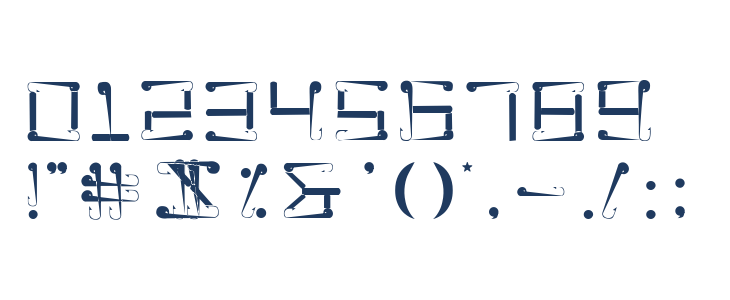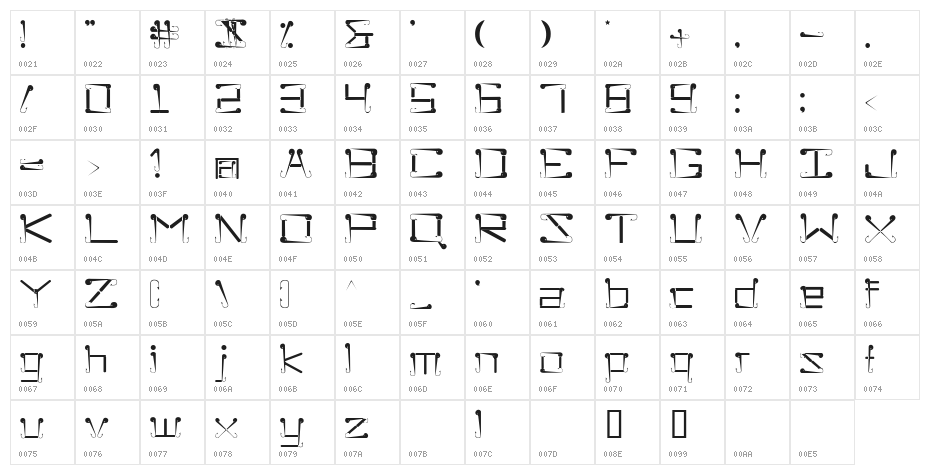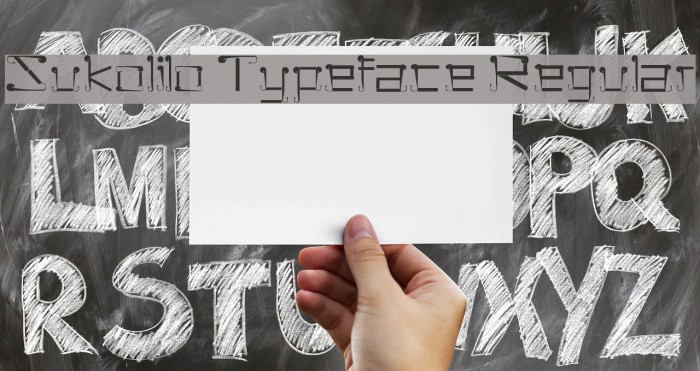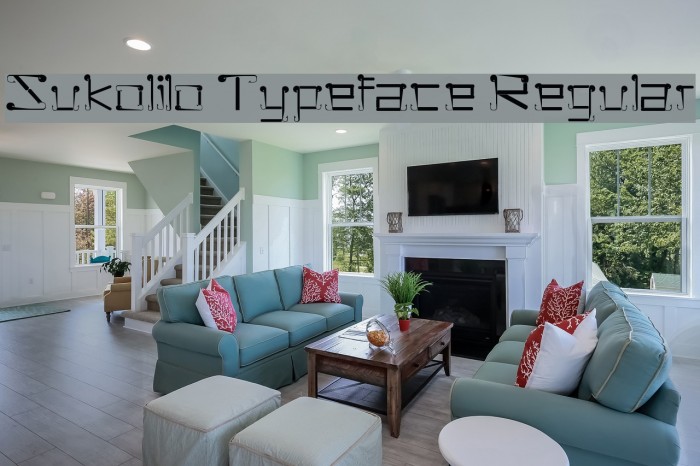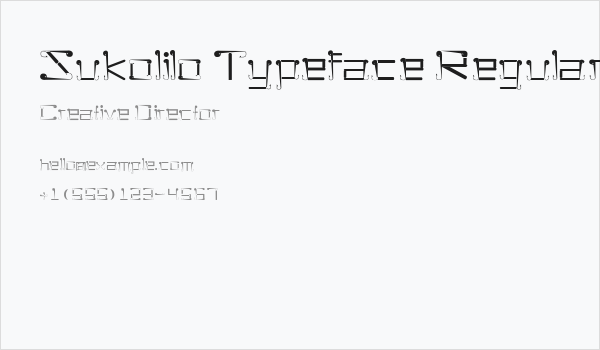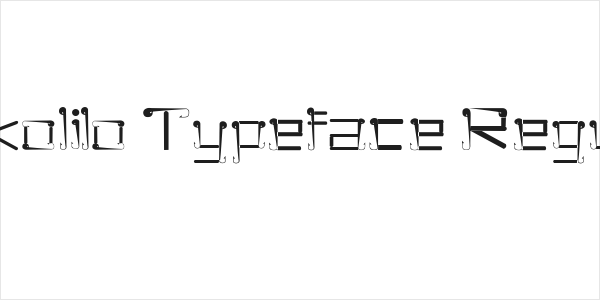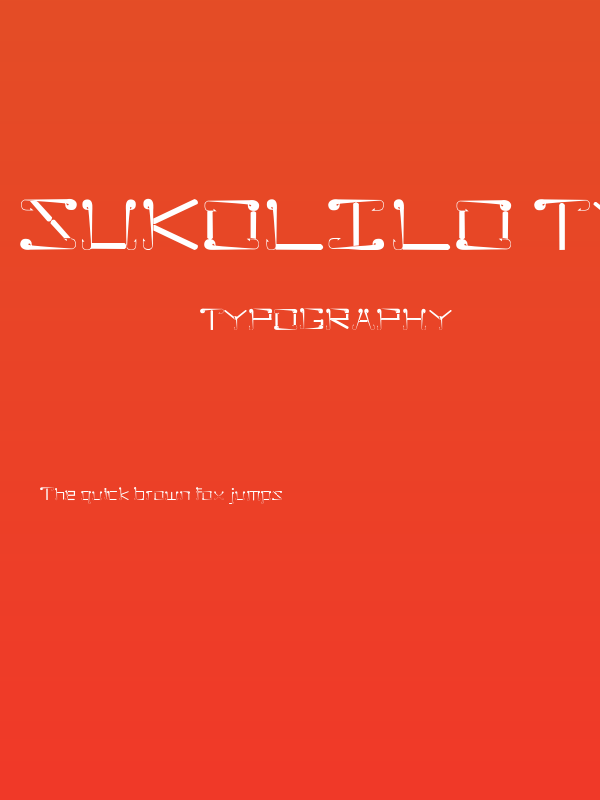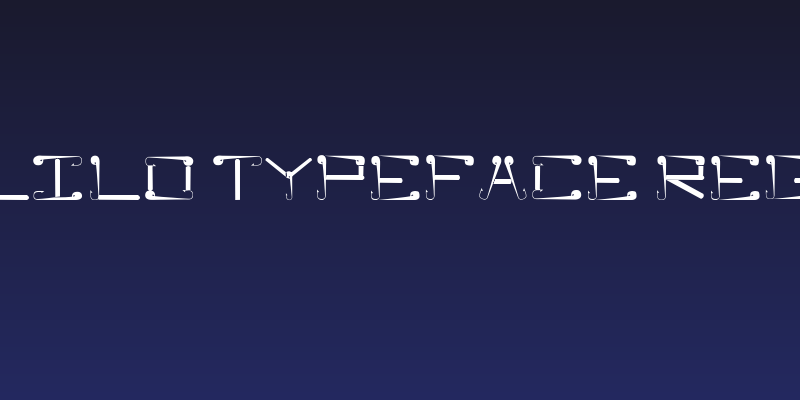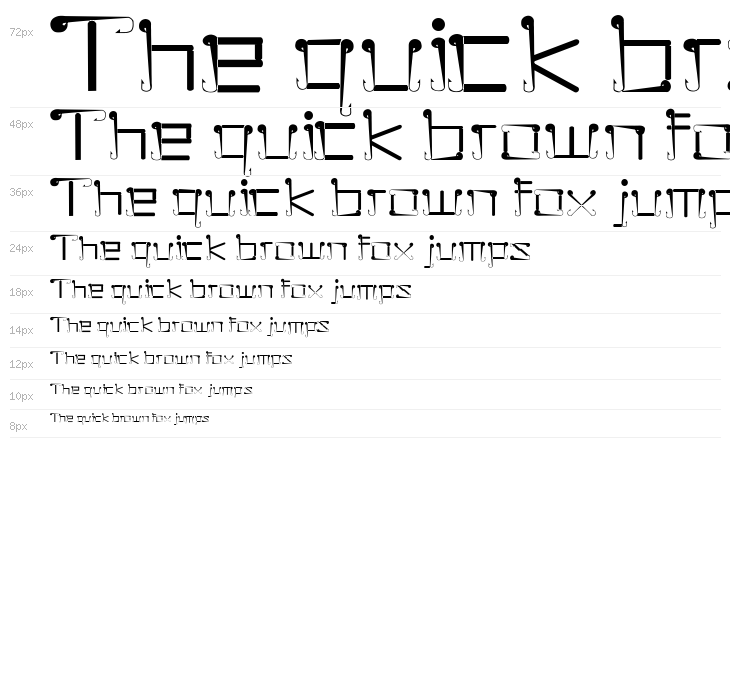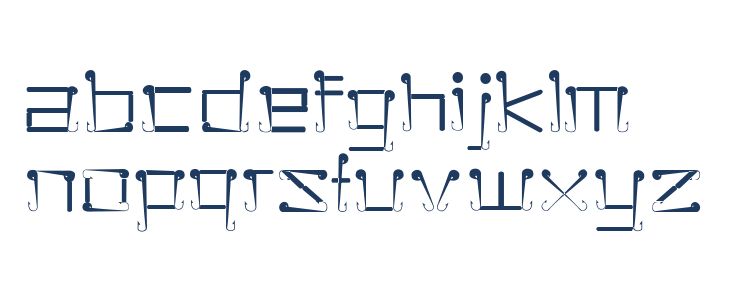
Sukolilo Typeface Regular Font
Sukolilo Typeface Regular Description
This font features a unique and playful design, characterized by its hook-like elements that extend from the ends of each character. The letters are primarily composed of straight lines and sharp angles, giving it a modern and geometric appearance. The use of contrasting thick and thin strokes adds an element of visual interest and dynamism. Each character is distinct, with a consistent style that ties the entire typeface together. The font maintains a balanced and cohesive look, making it suitable for creative and artistic projects.
| Use Case | Logos, Posters, Creative Branding |
| Proposed Projects | Ideal for creative branding, artistic posters, modern logos, and unique packaging designs. |